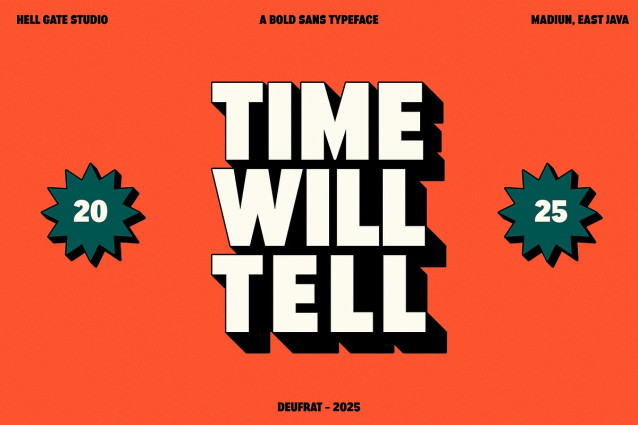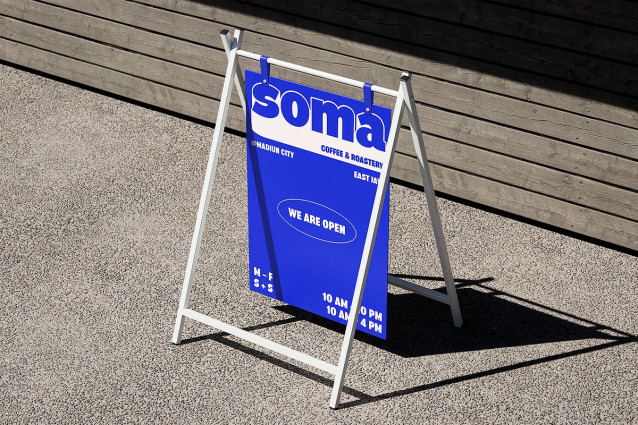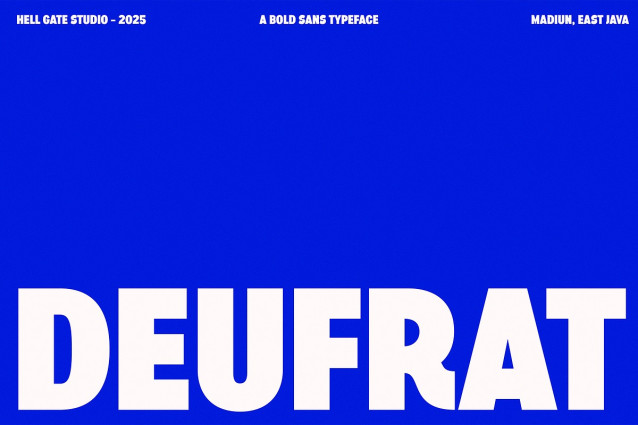
Deufrat Font
Deufrat Font, a Bold Sans Typeface that gracefully intertwines elegance and audacity. Revel in the ease of effortless editing, as Deufrat allows you to customise both text and colour with simplicity. Crafted with absolute precision, this high-quality font delivers an exceptional rendering experience. Your creative toolkit certainly won’t be complete without the artistically unique and versatile Deufrat.